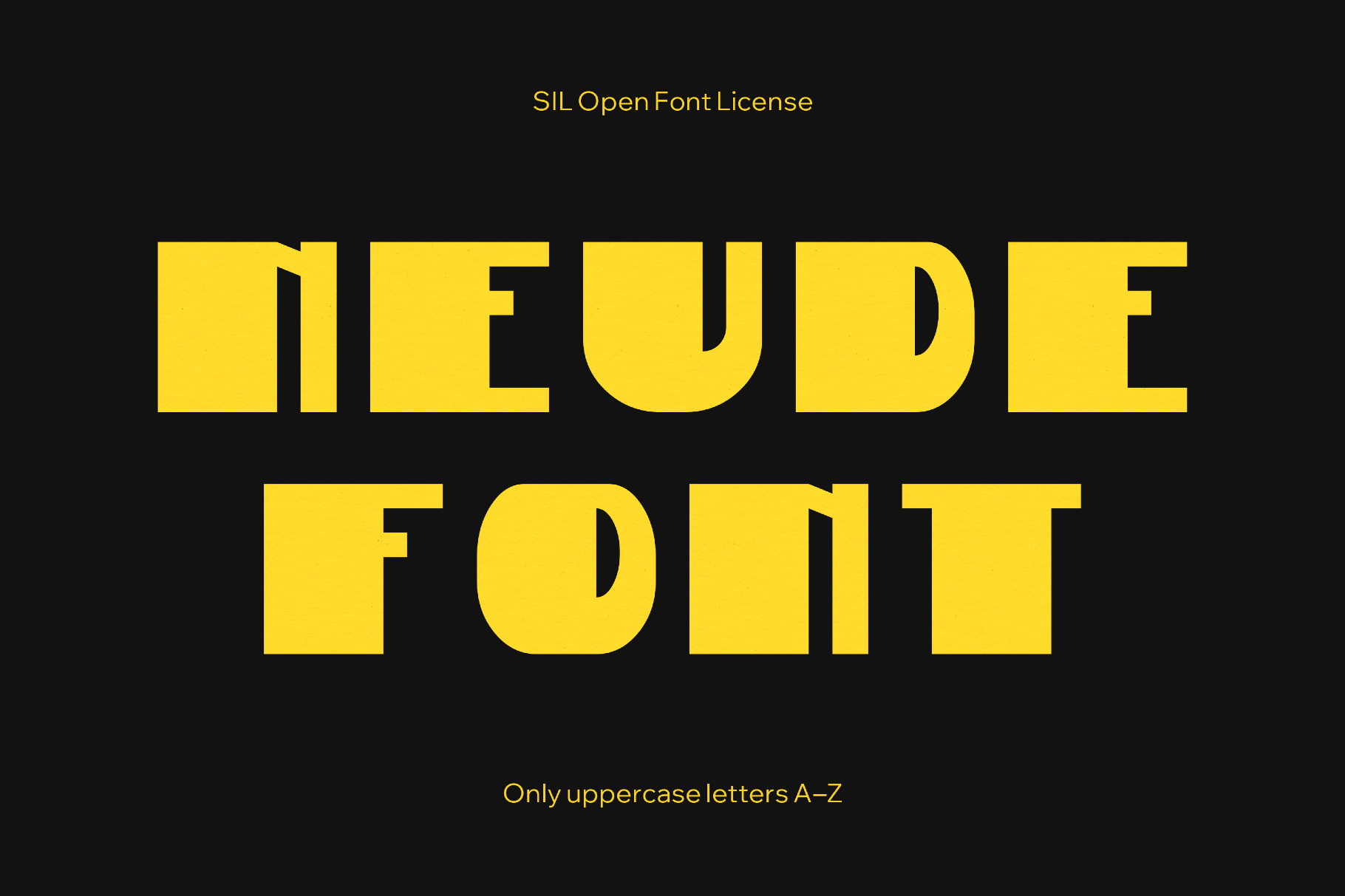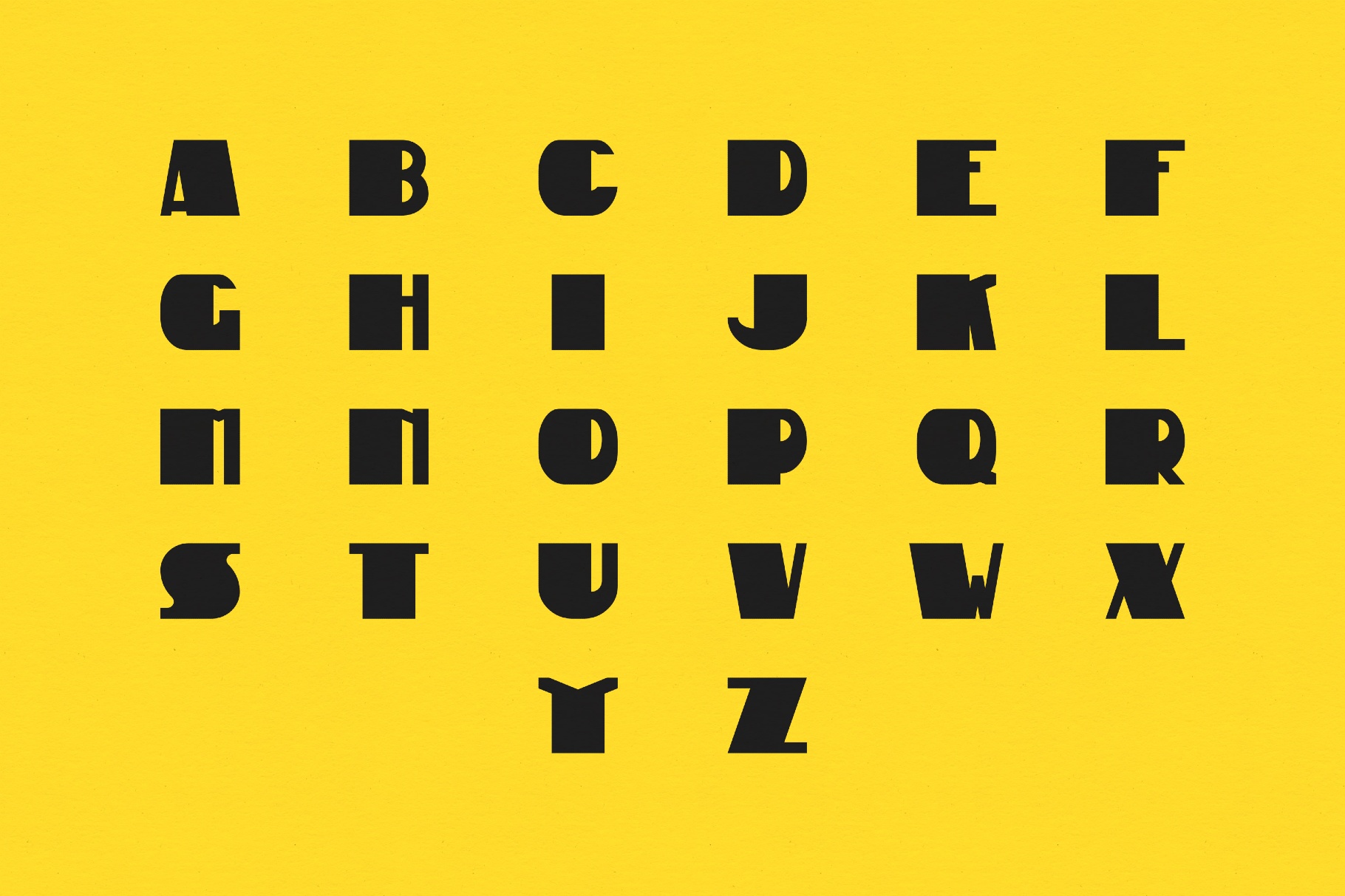
Neude Font
Neude
Neude lifts the heavy drama of Amsterdam School lettering into crisp digital form, with extreme bold–thin contrasts and Art Deco silhouettes. The striking rhythm of its strokes suits architectural or cultural branding, festival identities, posters, packaging fronts, album artwork, book and magazine covers, exhibition graphics, wayfinding experiments, and web typography.
- Only uppercase letters A–Z.
- Multilingual support across an extended Latin and Cyrillic scripts.
- Dingbats.